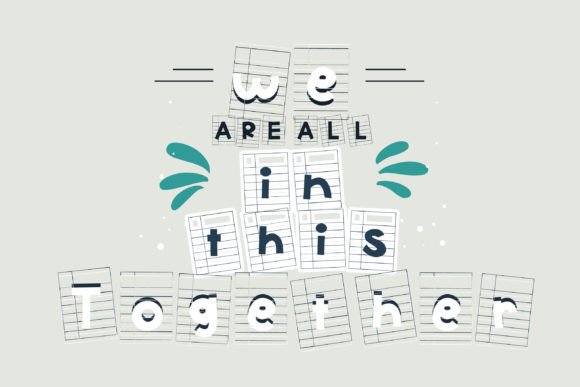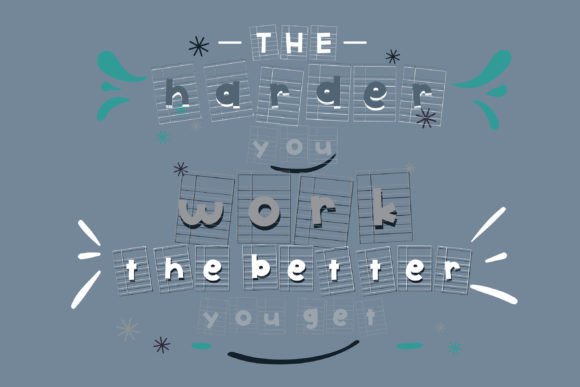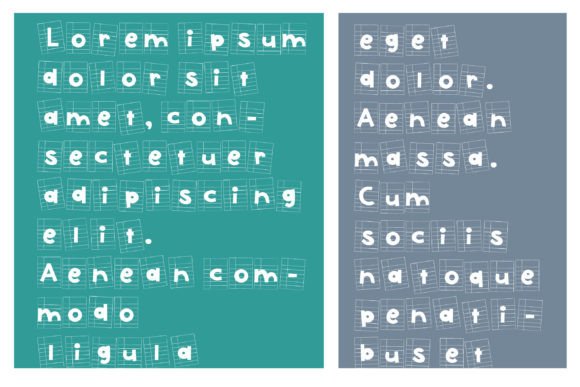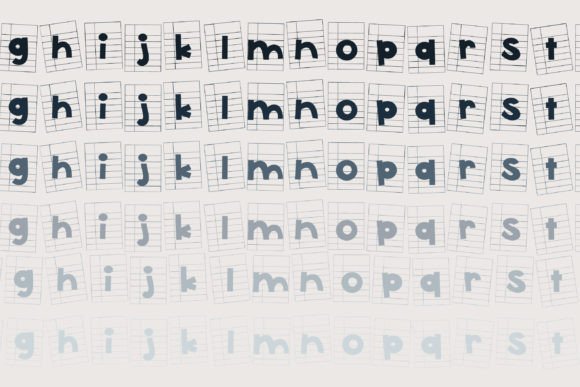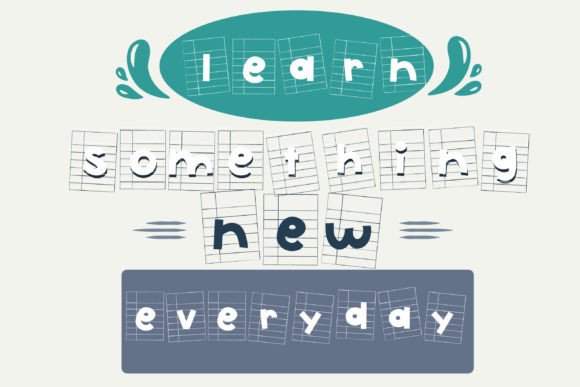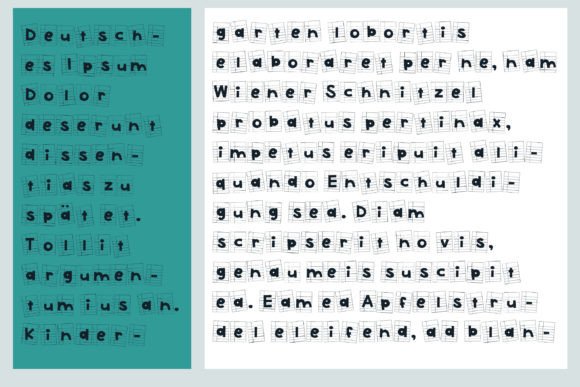
Introduction to Papered Font
Papered font combines the charm of a whimsical sans serif with the nostalgia of toggled notebook paper.
This unique typeface brings a touch of handmade warmth to your digital creations With its playful letters resting on lined paper, Papered adds a cozy and imaginative feel to invitations, notes, and designs that tell a story.
Key Features of Papered Font
Why Choose Papered Font?